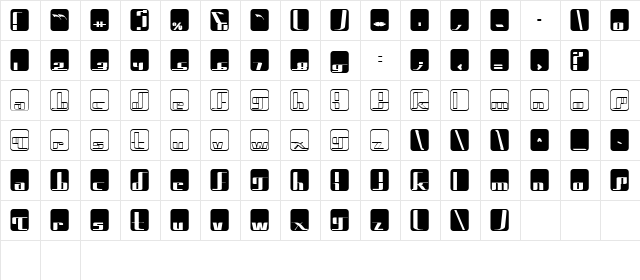
paper chase 2 blocked inside
Design Context for paper chase 2 Typeface
paper chase 2 is a composed and adaptable typeface that performs quietly and consistently across a wide range of design contexts.